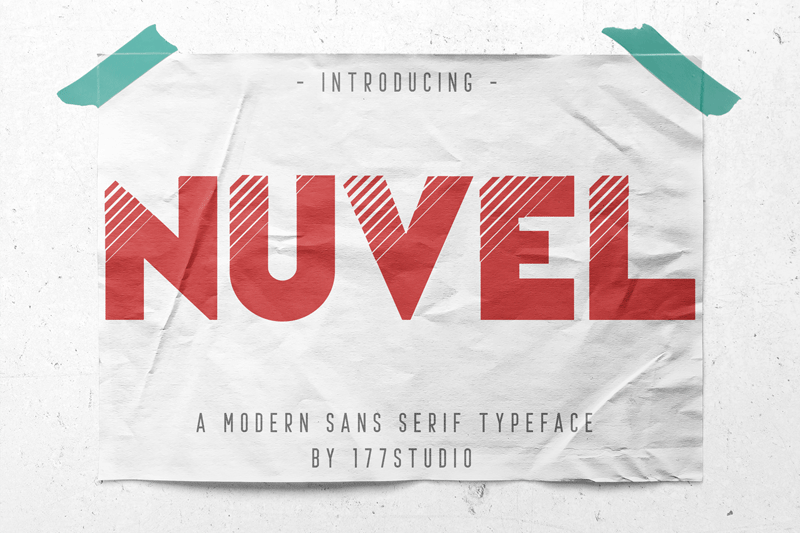
Font name: | Nuvel |
Nuvel Font is a Modern Sans-serif typeface. It�s a solid and shopisticated display font, created to emphasys big headline, title, single character and also good for short description paragraph. NOTE: This demo font is for PERSONAL USE ONLY! and NO COMMERCIAL USE ALLOWED. � Here is the link to purchase COMMERCIAL LICENSE: https://177studio.com/product/nuvel-modern-sans-serif-font/ or https://gumroad.com/l/tMlIM Thank you for download and your appreciated. Keep Support our work and Happy Design !! if you have any problem, let we know by email: admin@177studio.com |